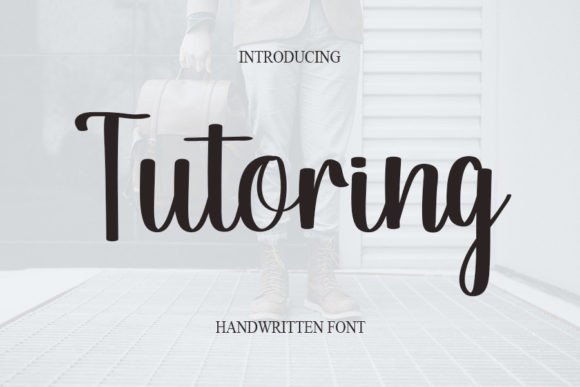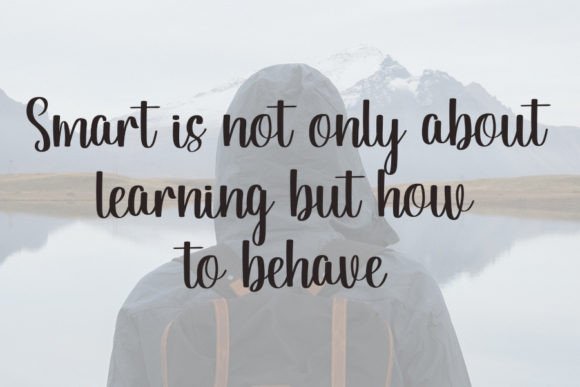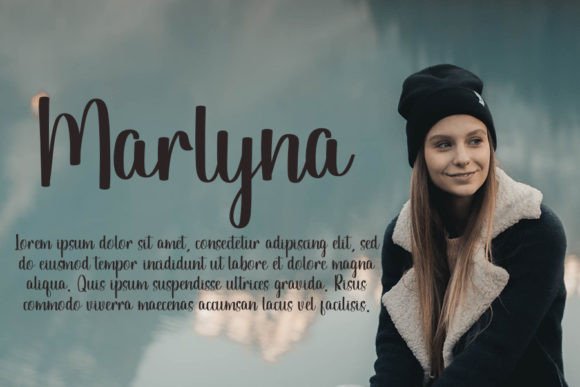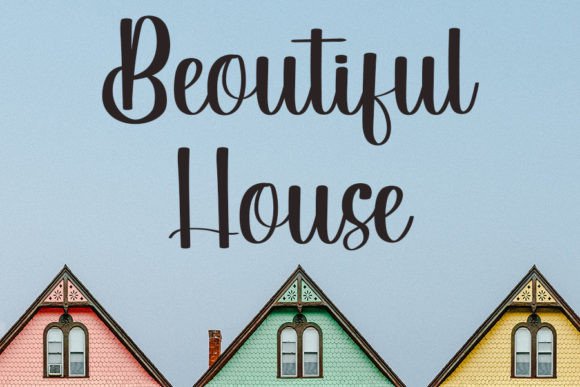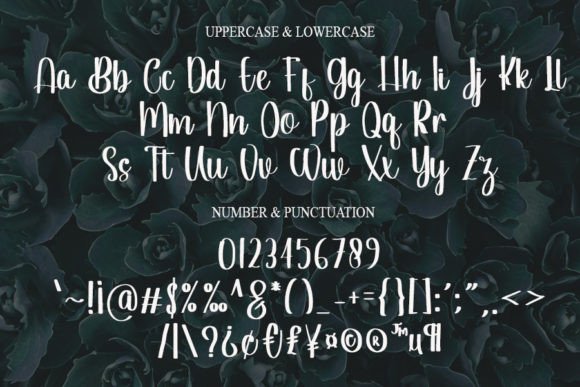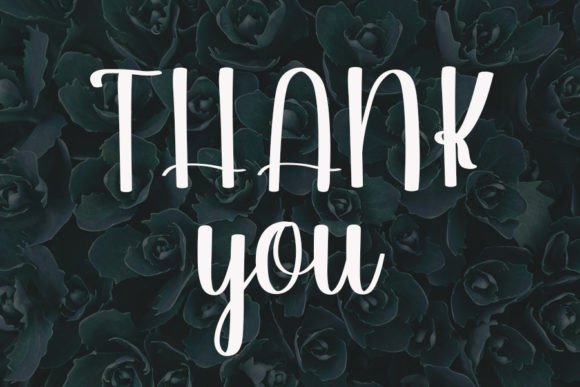
Tutoring Font
About Tutoring Font
Tutoring is a cool handwritten font that exudes a modern vibe with spotless forms, drawing inspiration from classic calligraphy. Striking a balance between not being too thin or too thick, this font boasts a varied and balanced design, intended to enhance the beauty of your projects.
The cool and modern characteristics of Tutoring make it a versatile choice for a wide range of creative applications. Whether you’re working on digital or print projects, its spotless form ensures legibility, while the modern vibe adds a contemporary touch to your text.
The influence from classic calligraphy in Tutoring gives it a touch of elegance and timelessness. This makes it suitable for various design contexts, from branding and invitations to product packaging and beyond. The balanced and varied forms contribute to a visually engaging aesthetic, allowing Tutoring to stand out in your designs.
Imagine Tutoring bringing a fresh and contemporary feel to educational materials or enhancing the sophistication of branding projects. Visualize it gracing invitations, adding a touch of classic elegance. Whether used in headers, body text, or other design elements, Tutoring is designed to elevate the visual appeal of your projects.
In summary, Tutoring is more than just a font; it’s a tool crafted to enhance the beauty of your designs. Its cool and modern handwritten style, inspired by classic calligraphy, brings a distinctive touch to your creative endeavors.